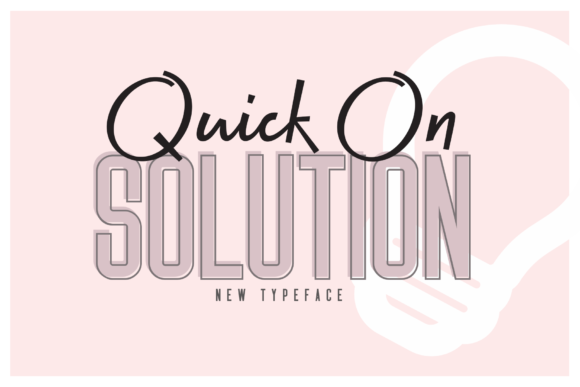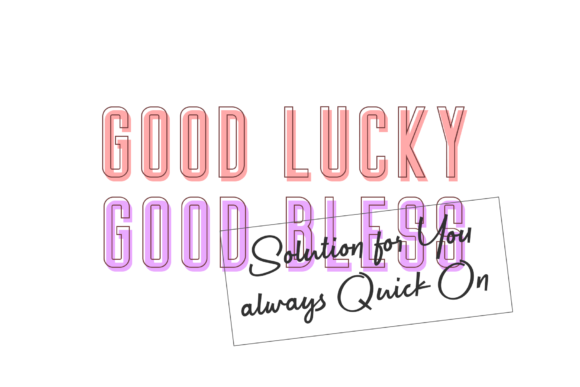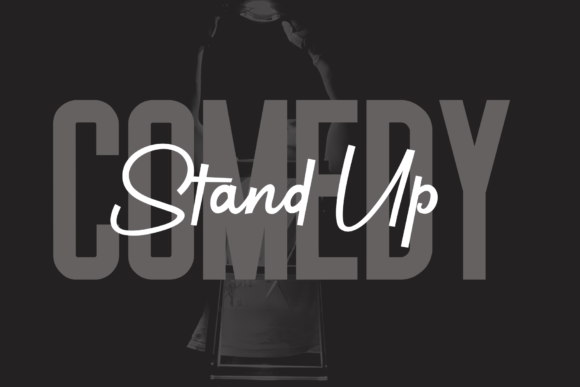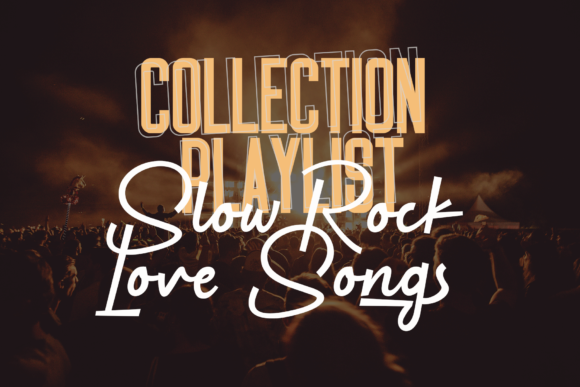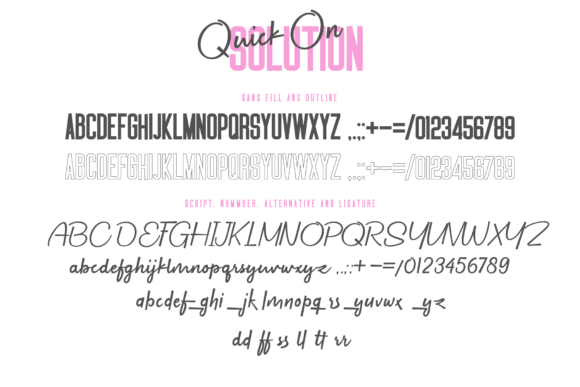
Quick on & Solution Font
The Quick On & Solution is a fun font duo!
The Quick On is a handmade script font with natural characteristic, and the Solution is a normal sans font with delicate and gentle characteristic.